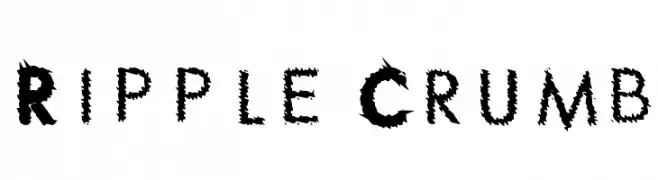
( Fonts by Astigmatic One Eye Typographic Institute - Brian J. Bonislawsky - astigmatic.com )
A bold, jagged font with dynamic, edgy characters.
( Fonts by AJ Palmer )
A playful, hand-drawn font with whimsical, irregular letterforms.
( Fonts by Patrick Broderick )
A bold, jagged font with a horror-inspired, torn appearance.
( Fonts by Mickey Rossi - www.subflux.com )
A futuristic, bold font with geometric and angular shapes, ideal for tech-inspired designs.
( Fonts by Emerald City Fontwerks )
A bold, handwritten-style font with a casual, expressive look.